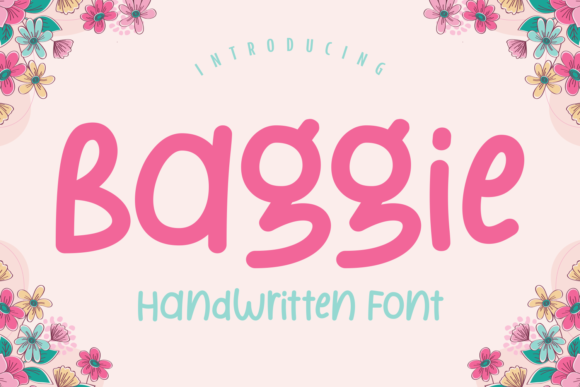
Baggie Font: The Perfect Choice for Fun and Playful Designs
Are you looking for a font that embodies playfulness and authenticity? Do you want to add a touch of quirkiness to your designs? Look no further than the Baggie font! This cute and fun handwritten font is perfect for any children activity or school project. In this article, we’ll take a closer look at the Baggie font, its features, and why it’s a great choice for designers and crafters.
What is Baggie Font?
Baggie is a handwritten font that exudes playfulness and fun. Its quirky and charming design makes it perfect for designs that require a personal touch. The font is carefully crafted to resemble handwriting, giving it a unique and authentic feel. Whether you’re designing a children’s activity sheet, a school project, or a fun craft, the Baggie font is sure to add a touch of whimsy and excitement.
Features of Baggie Font
The Baggie font comes with a range of features that make it a great choice for designers and crafters. Some of its key features include:
- Cute and Quirky Design: The Baggie font has a unique and charming design that is sure to capture the attention of your audience.
- Handwritten Style: The font is carefully crafted to resemble handwriting, giving it a personal and authentic feel.
- Playful and Fun: The Baggie font embodies playfulness and fun, making it perfect for children’s activities and school projects.
- Easy to Read: Despite its quirky design, the Baggie font is easy to read, making it perfect for designs that require a clear and legible font.
Why Choose Baggie Font?
So, why choose the Baggie font for your designs? Here are just a few reasons:
- Perfect for Children: The Baggie font is perfect for children’s activities, such as coloring pages, activity sheets, and educational materials.
- Great for School Projects: The font is also great for school projects, such as posters, presentations, and reports.
- Adds a Personal Touch: The Baggie font adds a personal touch to your designs, making them more engaging and relatable.
- Versatile: The font is versatile and can be used for a range of designs, from digital to print.
In conclusion, the Baggie font is a great choice for designers and crafters who want to add a touch of playfulness and authenticity to their designs. Its cute and quirky design, handwritten style, and ease of use make it perfect for children’s activities and school projects. Whether you’re a designer, teacher, or parent, the Baggie font is sure to bring a smile to your face and make your designs more engaging and fun.